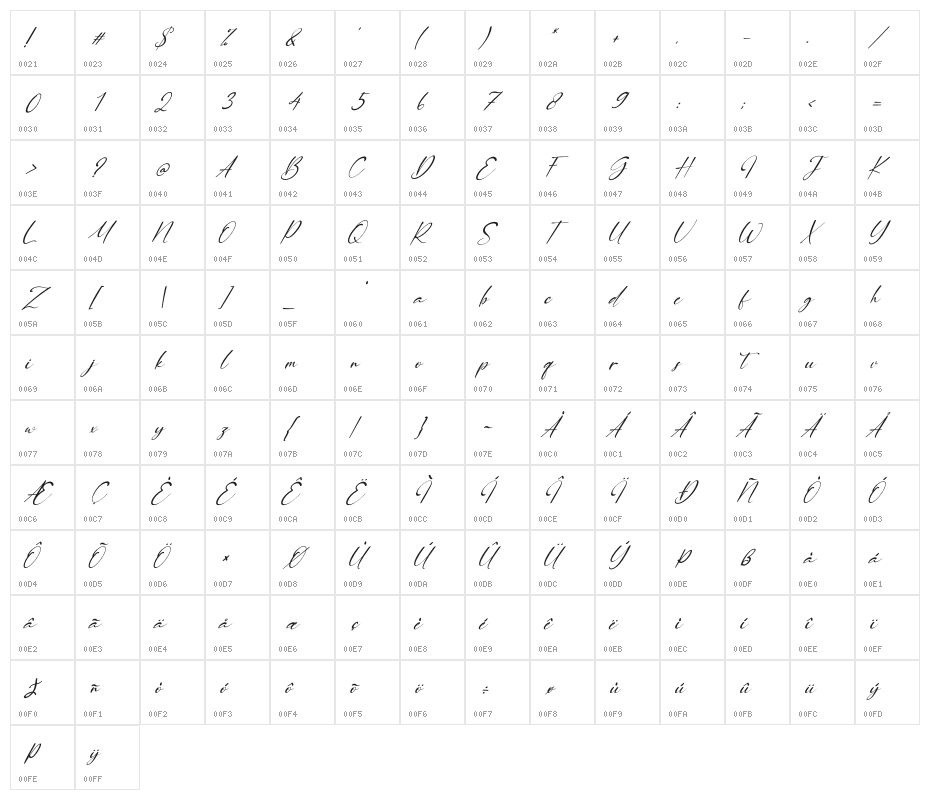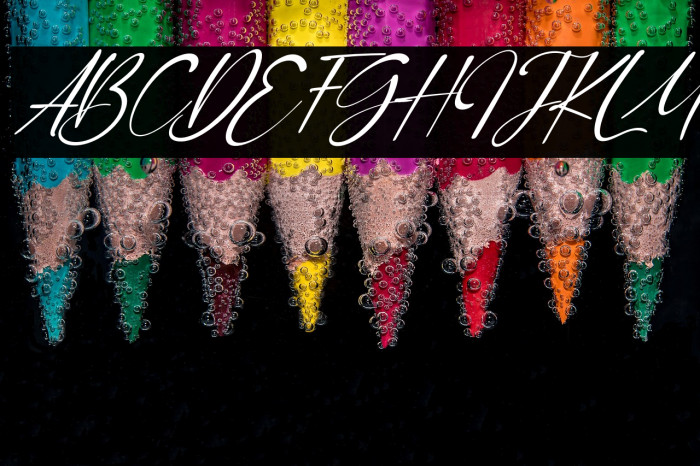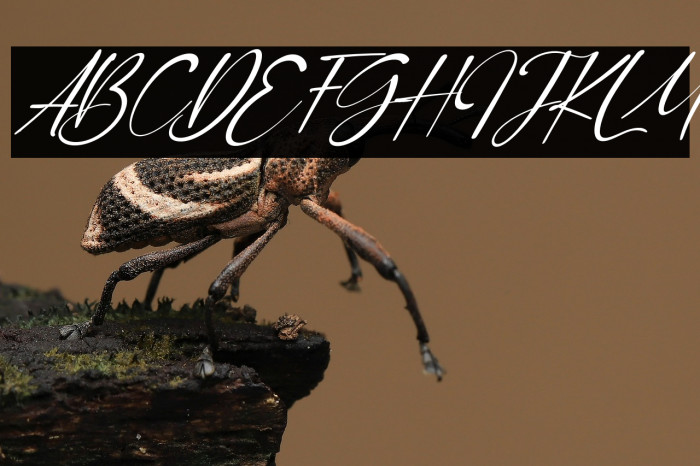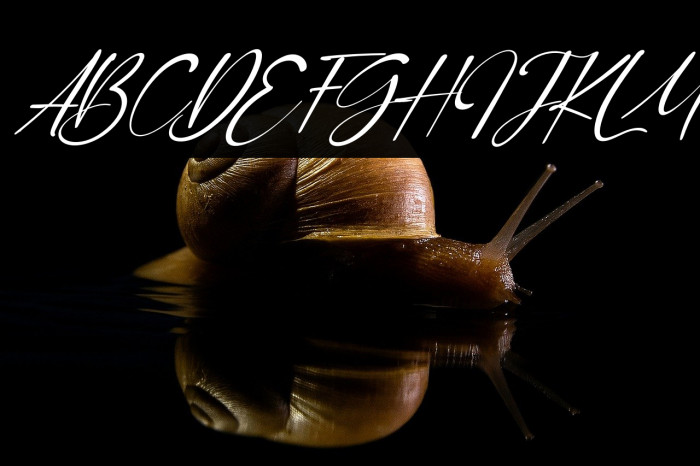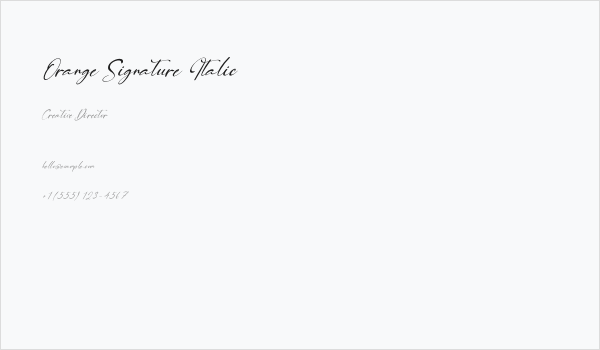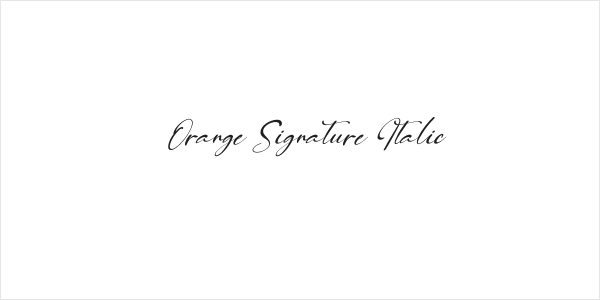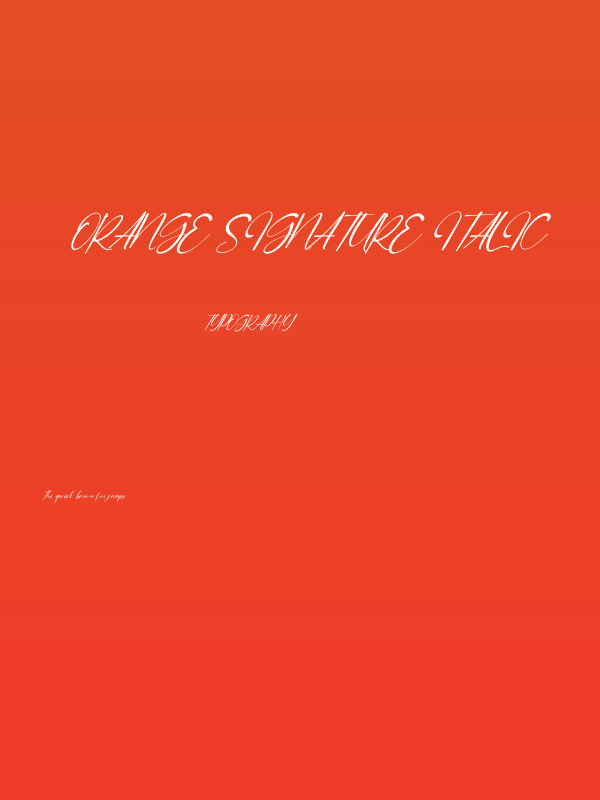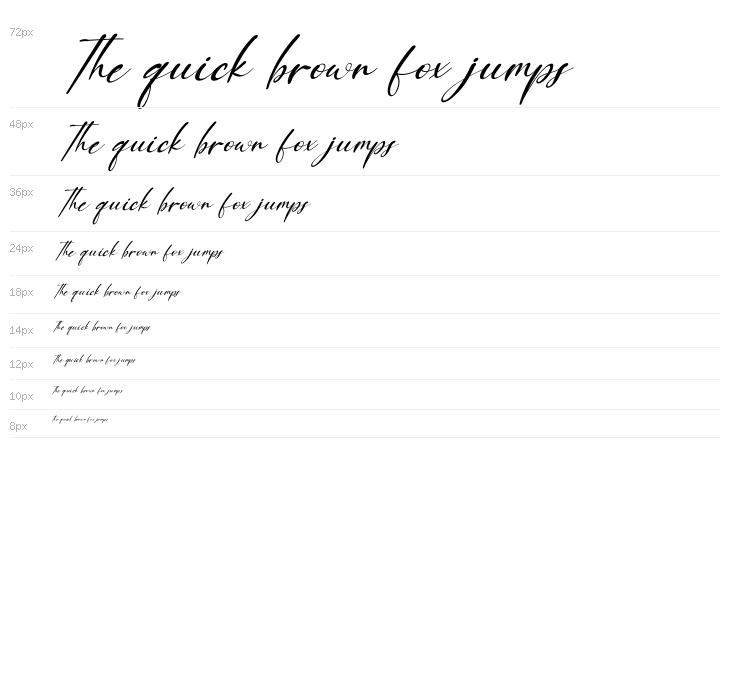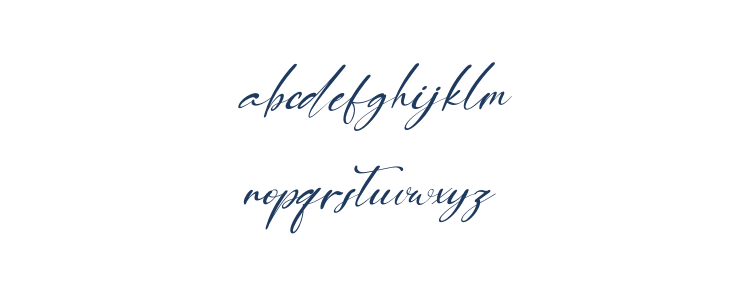
Orange Signature Italic Font
Orange Signature Italic Description
This elegant script font exudes a sense of sophistication and fluidity, characterized by its graceful, flowing strokes and italicized form. The uppercase letters are tall and slender, with sweeping curves that give them a dynamic and lively appearance. The lowercase letters maintain a consistent style, with smooth connections and a slightly more compact form. The numerals are stylishly integrated, maintaining the overall aesthetic of the font. Special characters are thoughtfully designed to complement the script style, adding versatility to its use. This font is perfect for projects that require a touch of elegance and personal flair.
Overall StyleElegant
Use CaseLogos, Invitations, Branding
Proposed ProjectsIdeal for wedding invitations, elegant branding, personal signatures, and high-end product packaging.